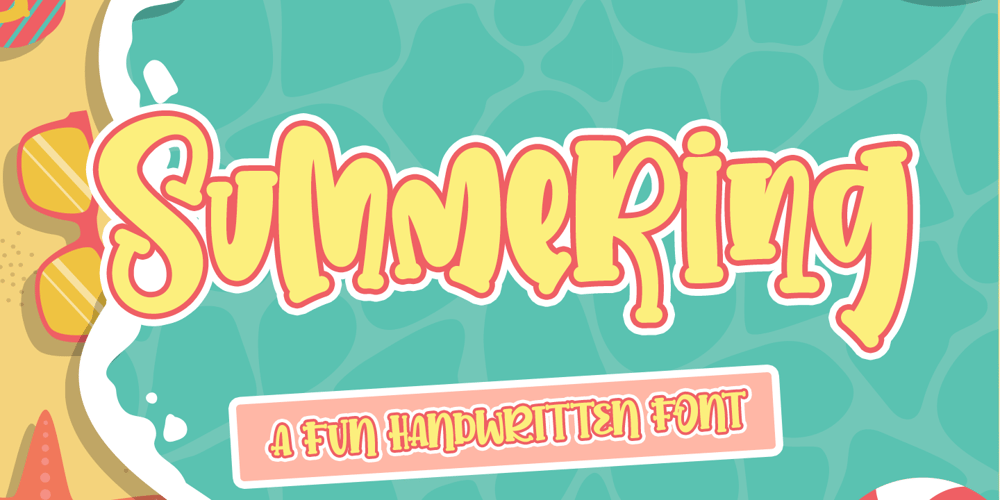
Summering
Summering font
Summering Font Family was designed by Thomas Aradea and published by Letterara. Summering contains 1 styles and family package options. Summering is a fresh, sweet, and friendly handwritten font. Its friendly feel makes this font incredibly versatile, fitting a wide range of contexts. Its distinct and well-rounded letters make this font a masterpiece. Add it to your creative ideas and notice how it makes them stand out! This font is PUA encoded which means you can access all of the awesome glyphs with ease! It also features a wealth of special features including ligatures.